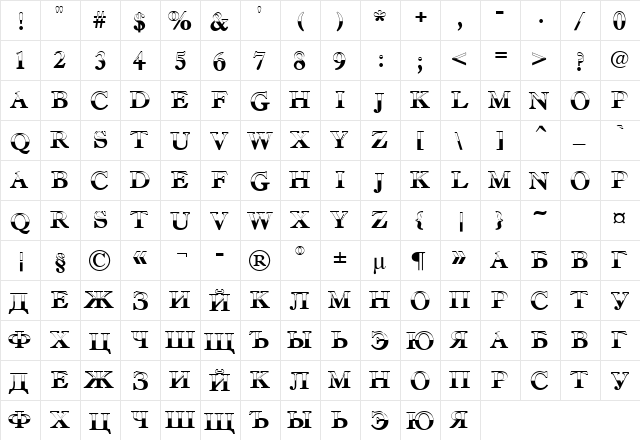
a_AntiqueTradyTtlB&W Regular
Design Context for a_AntiqueTradyTtlB&W Typeface
a_AntiqueTradyTtlB&W wears its vintage influences proudly, with letterforms that recall mid-century signage, classic packaging, and nostalgia-driven design.
Ideal for diner signage, record shop branding, 70s/80s-themed projects, and heritage product labels.
Font Pairing: Combine a_AntiqueTradyTtlB&W with a simple slab or neutral sans — period-accurate companions reinforce the vintage feel without competing for attention.
Pro Tip: Lean into a_AntiqueTradyTtlB&W's period character by pairing it with aged paper textures, muted colour palettes, and vintage illustration styles.